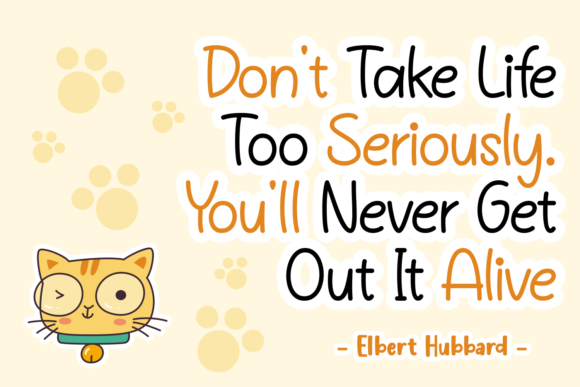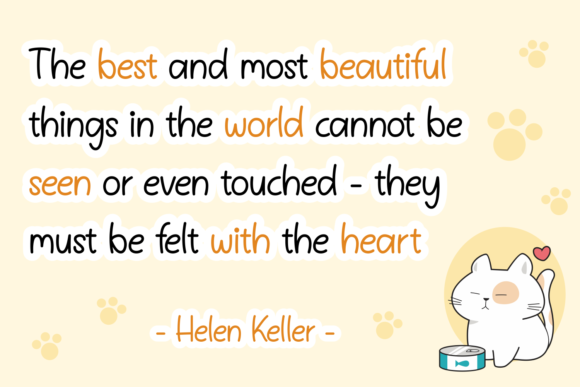
Beauty Sweet Font
db-ku.com - Script & Handwritten -- Beauty Sweet is a quirky and sweet handwritten font. You can use it for various projects, such as blog posts, logos, branding, ads, invitations, greeting cards, planners, photo albums, decorations, and much more. Add it to any of your designs, and enjoy the results!